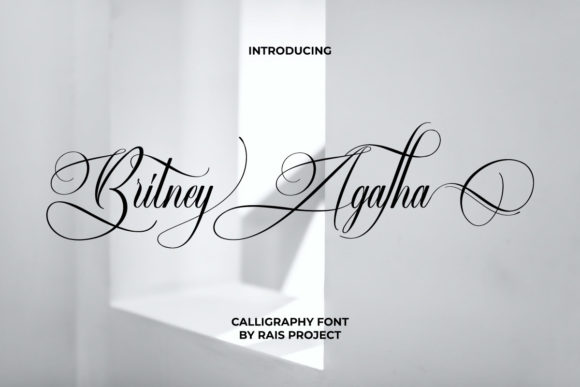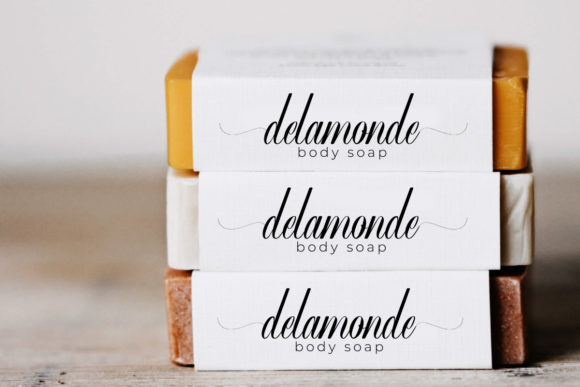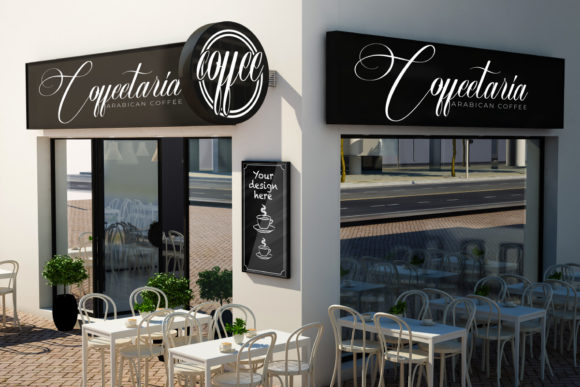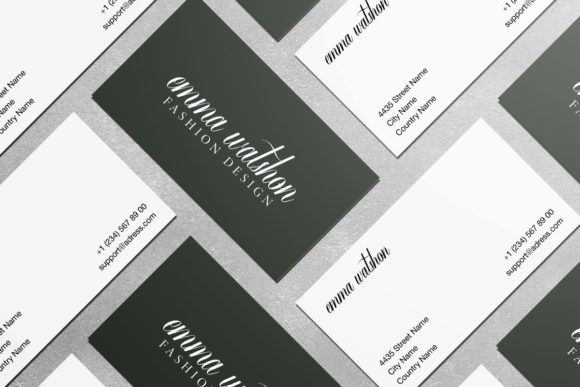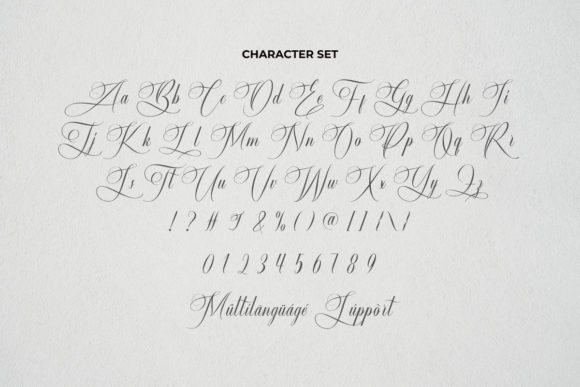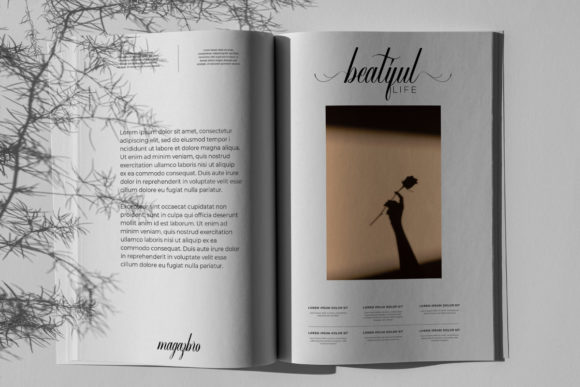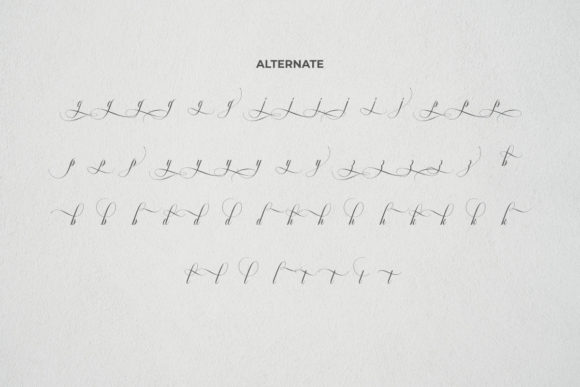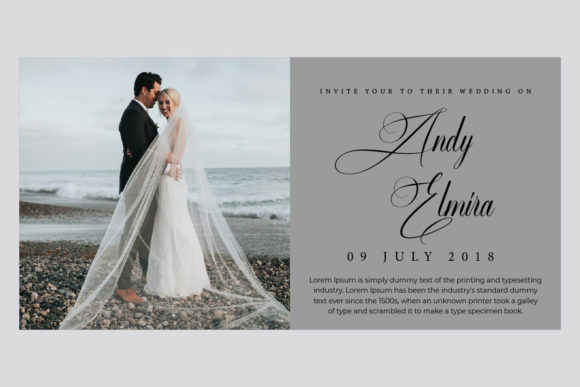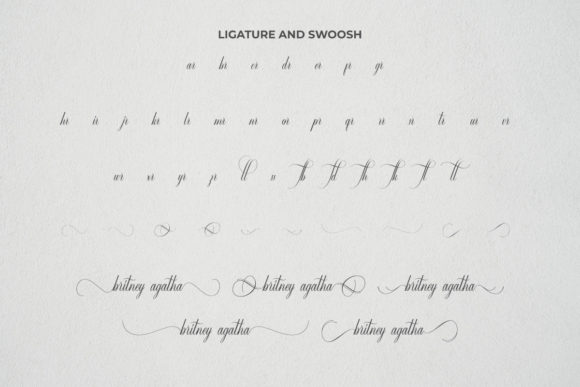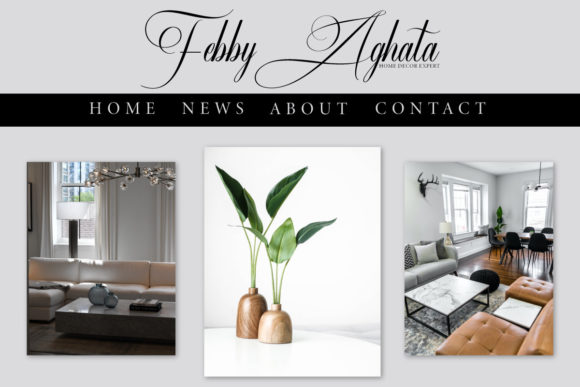
Britney Agatha Font
About Britney Agatha Font
Britney Agatha is a stunning and opulent calligraphic font that exudes a sense of elegance and luxury. Its intricate and graceful letterforms make it a perfect choice for a wide range of design applications, from high-end fashion to exquisite product labels, captivating photography, romantic weddings, and captivating signage.
The font’s slender and refined strokes contribute to its sense of sophistication, making it particularly well-suited for projects that require a touch of glamour and grandeur. Whether you’re creating a logo for a luxury brand, designing wedding invitations that demand attention, or curating captivating product packaging, Britney Agatha adds a level of refinement that elevates your design to new heights.
Britney Agatha’s calligraphic nature conveys a sense of handcrafted artistry and attention to detail, which is ideal for creating memorable and impactful designs. Its flowing lines and intricate curves capture the essence of handwritten calligraphy, adding a personalized and human touch to your creations.
The font’s versatility is evident in its compatibility with various design styles. Its luxurious vibe pairs seamlessly with fashion editorials, beauty products, and high-end photography, while its romantic charm enhances the allure of wedding invitations and romantic branding. The font’s ability to adapt to different contexts ensures that it remains a timeless choice for a diverse array of design projects.
One of the notable features of Britney Agatha is its PUA encoding, which grants easy access to a wide range of glyphs and swashes. This enables you to explore various typographic possibilities, from decorative flourishes to unique ligatures, giving you the creative freedom to customize and enhance your designs in unique ways.
In summary, Britney Agatha is a beautiful and luxurious calligraphic font that adds a touch of opulence and refinement to your design projects. Its versatility, intricate details, and PUA encoding make it a valuable asset for fashion, labels, photography, weddings, products, signage, and beyond. With Britney Agatha, you can create designs that radiate sophistication and capture the essence of luxury in every stroke.